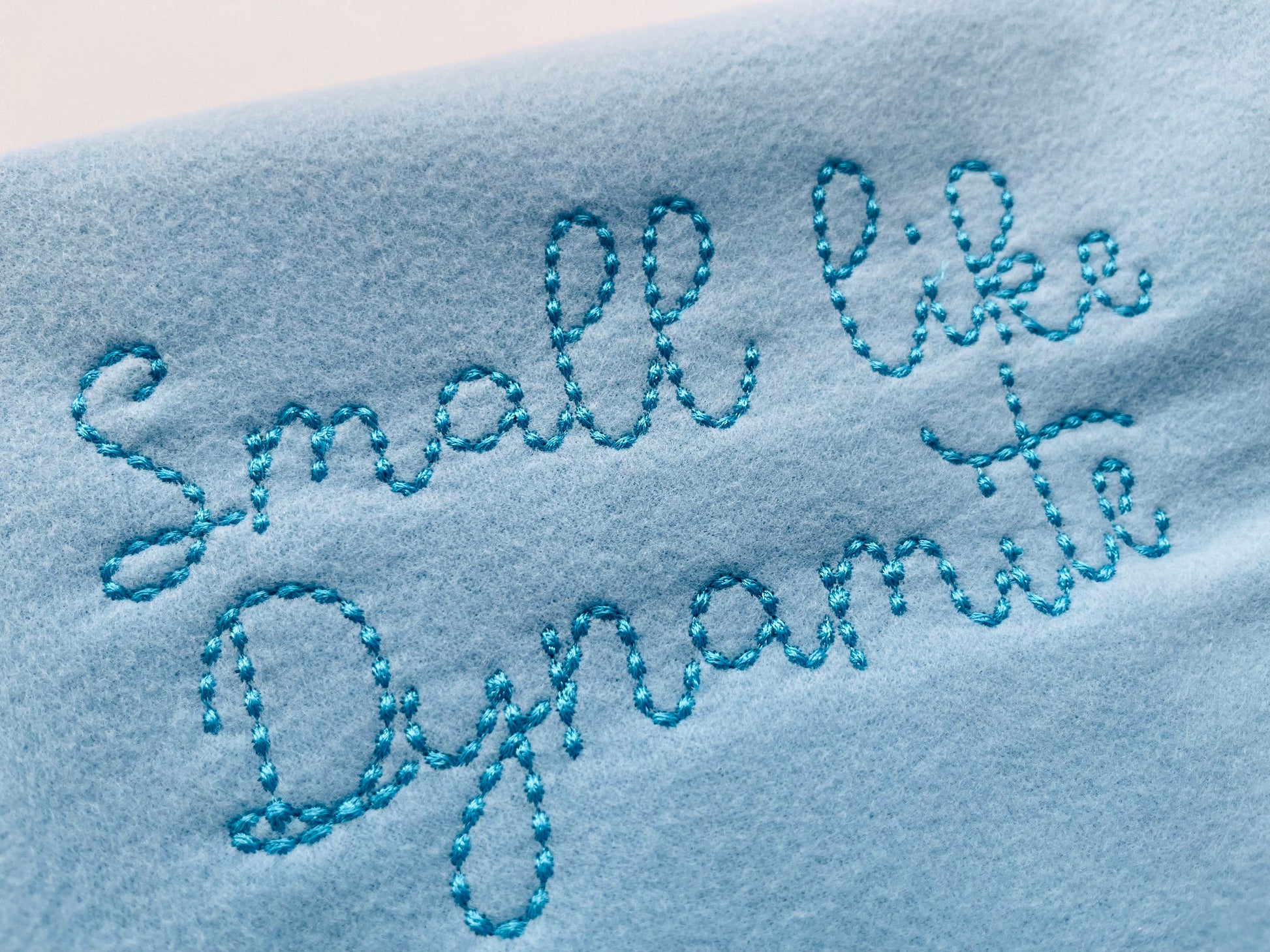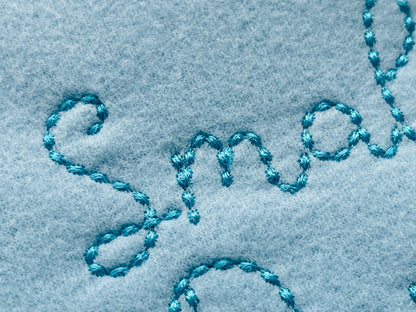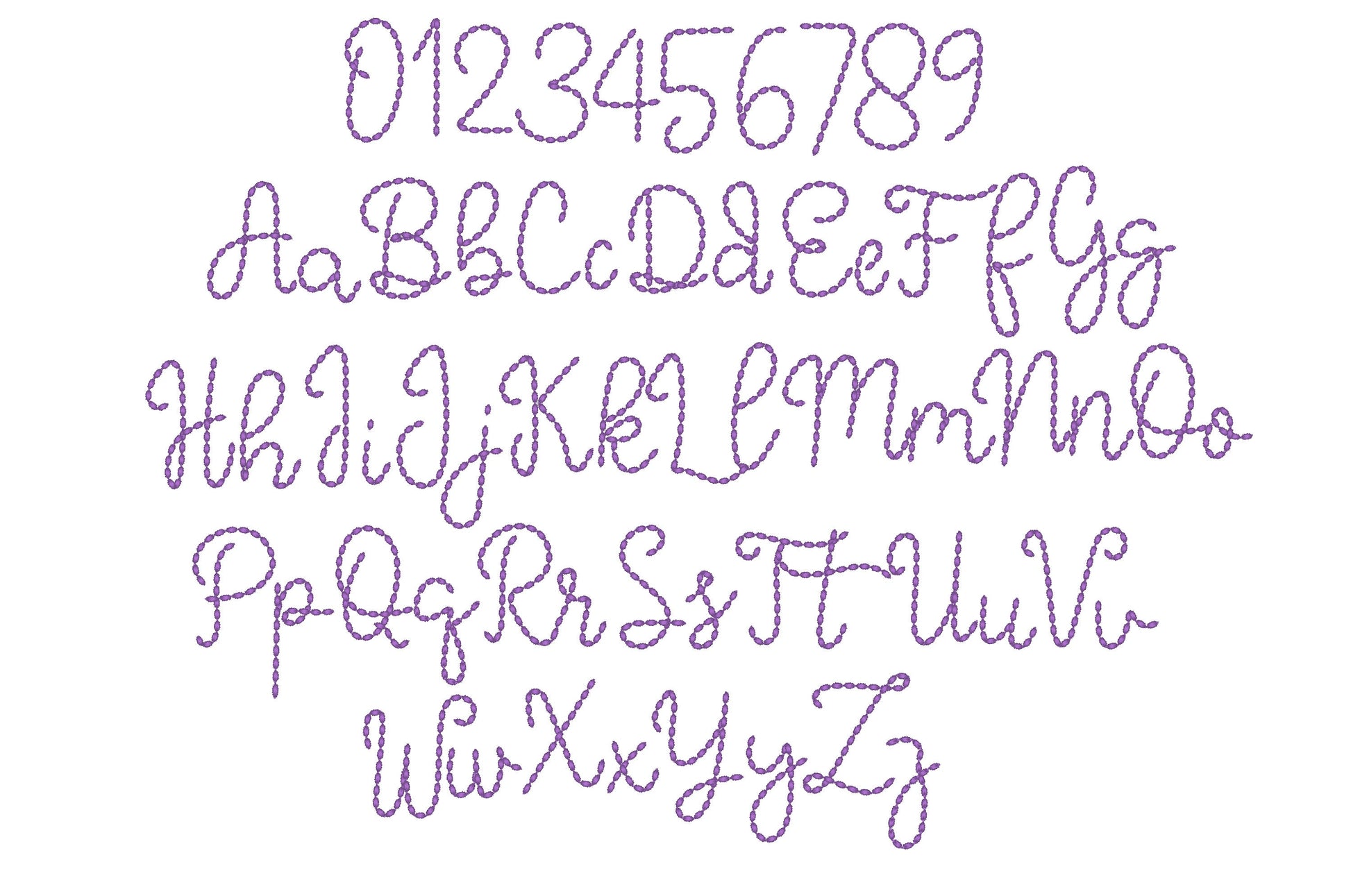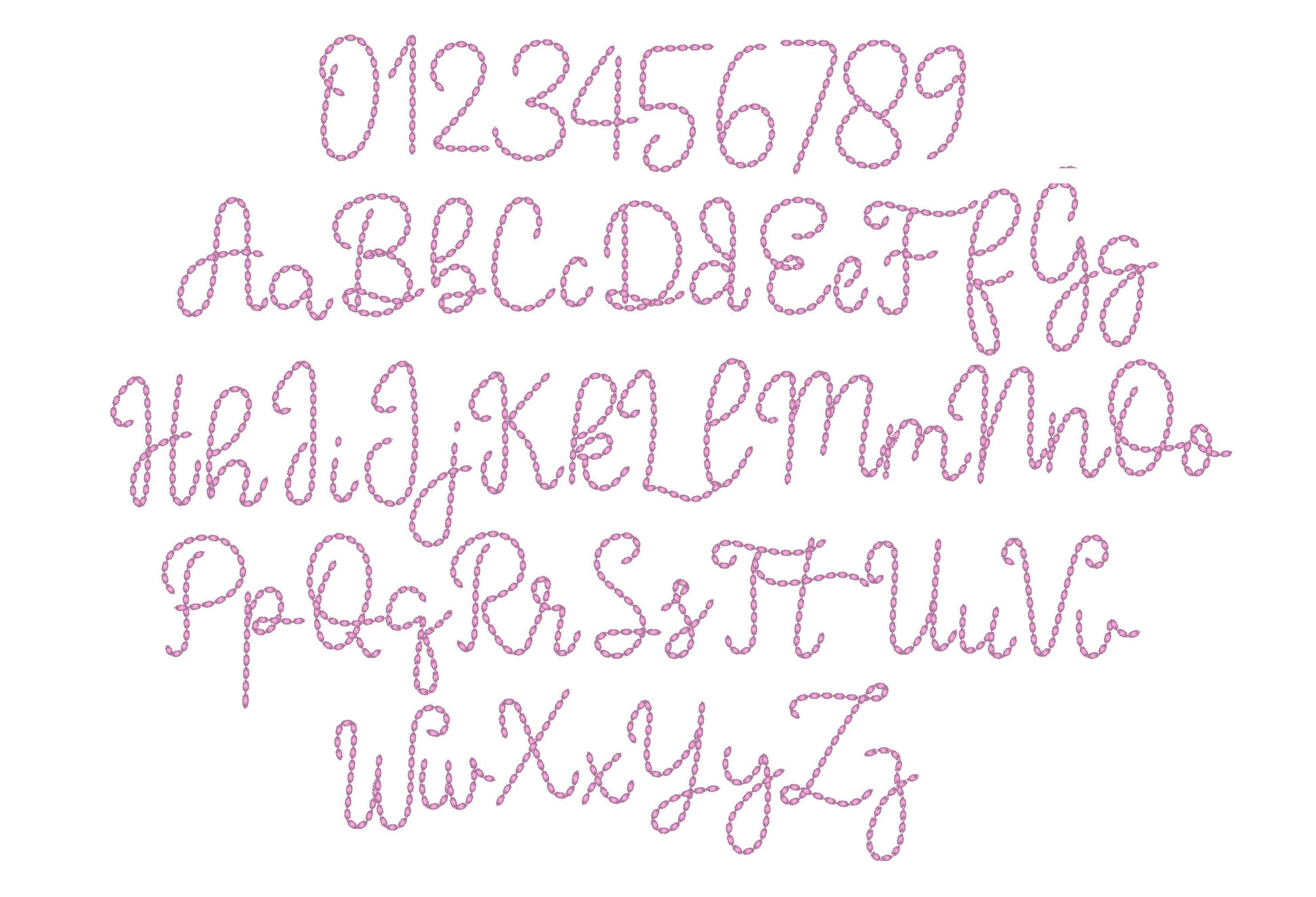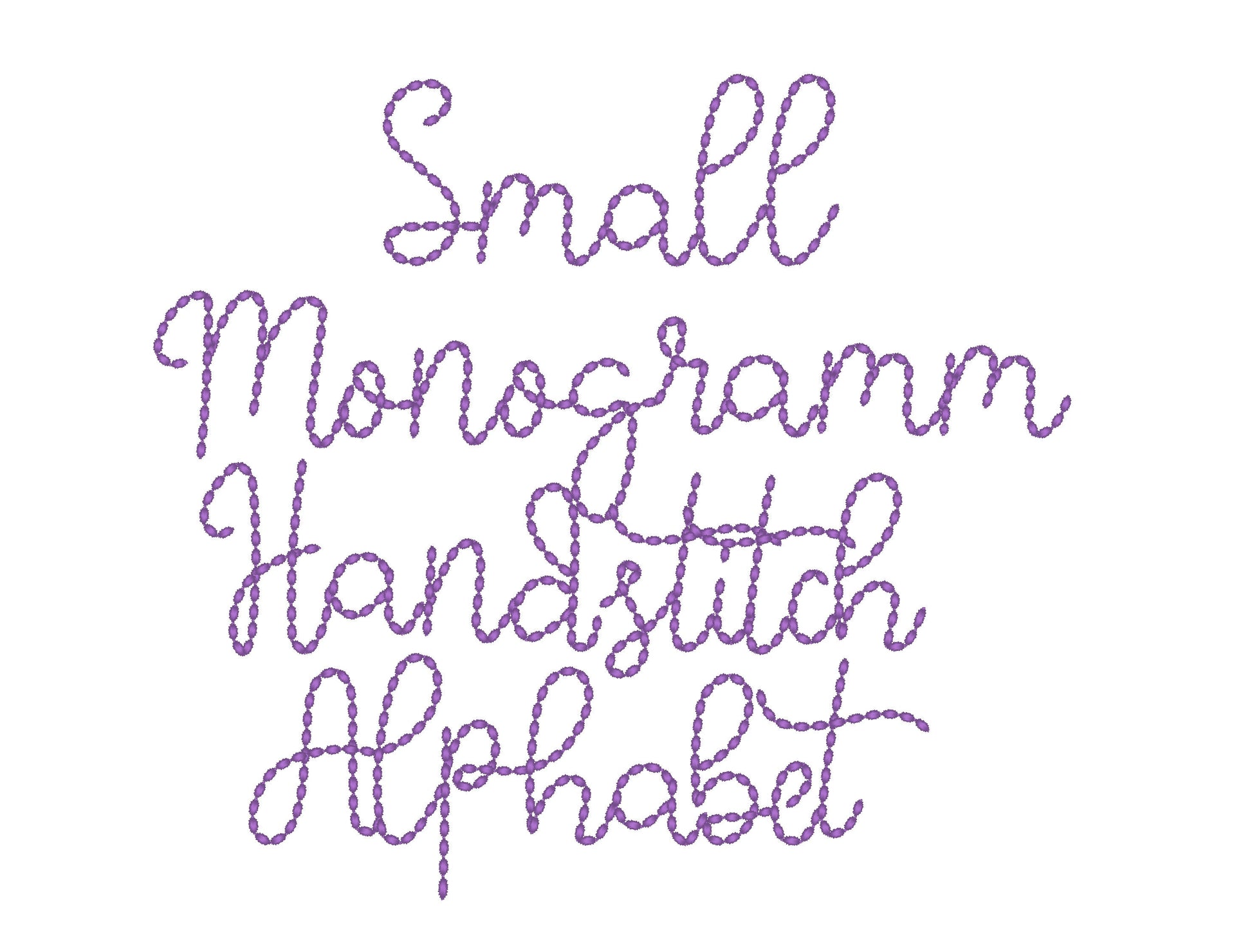
Or click to open the linkA hand stitch effect script in seed bean stitch, for kids' names and short sayings along necklines, on shirts and pillows.
Uppercase and lowercase letters, numbers and a period in five sizes: 1, 1.3, 1.6, 2 and 2.5 inches.